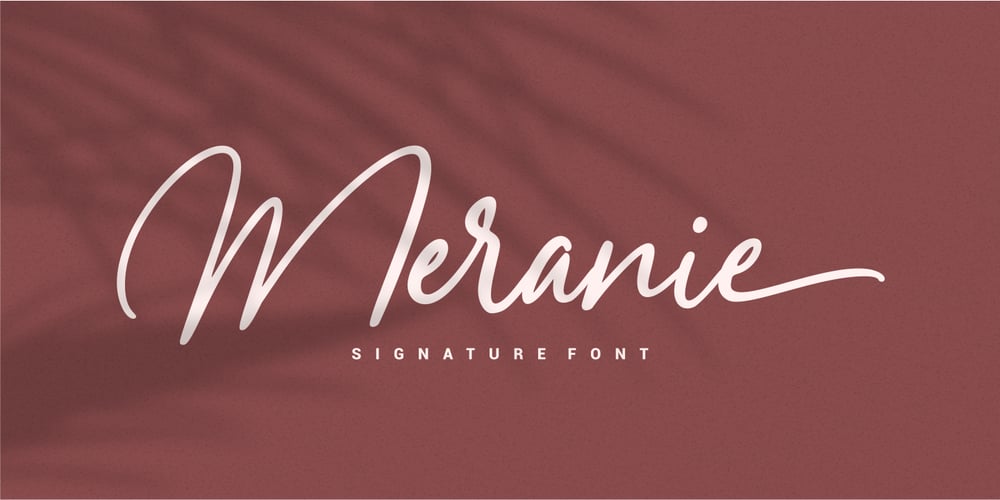
Meranie Font Family was designed by Risman Ginarwan and published by Garisman Studio. Meranie contains 1 styles and family package options. Meranie is made a naturally modern script with the ending swashes and more than ligatures. With the unique Opentype in it and the ligature will add aesthetic value to your design product. Available in this file are Meranie Swash which you can unite into an amazing design. – Simple installation – Ligatures & OpenType included – Swashes – Work for Windows or MAC – PUA Encoded Open – Versatile for poster, logotype, labels, book cover – Supported for: Adobe Illustrator, Photoshop, Shillouette, Corel Draw, Indesign, and Procreate (updated)Signature